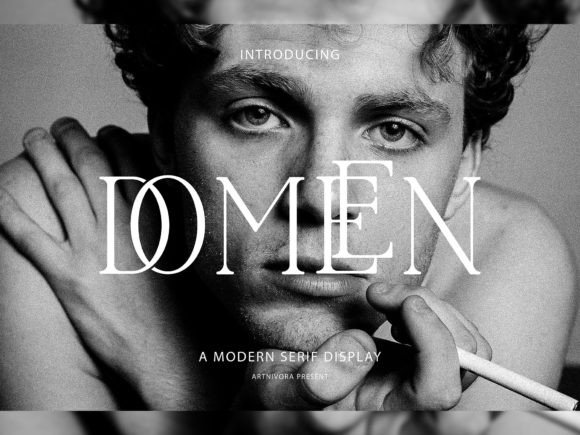
Behold, the majestic Domeen font, a serif masterpiece that exudes elegance and sophistication, captivating hearts with its timeless charm. Immerse yourself in a world of enchanting typography, where words dance and stories unfold in a harmonious symphony of aesthetics and meaning.
Journey through the ages with Domeen, a font that evokes the grandeur of Hogwarts' hallowed halls, where knowledge and magic intertwine. Experience the allure of a font that breathes life into your digital creations, transforming them into captivating works of art.
With Domeen, your designs will command attention, leaving an indelible mark on the hearts and minds of your audience. Its versatility knows no bounds, allowing you to weave your creative magic across a vast tapestry of projects.
Unleash your imagination and let Domeen guide you to typographic triumphs. Craft logos that radiate authority and prestige, design magazines that transport readers to new realms of inspiration, and create social media posts that ignite conversations and leave followers yearning for more.
Domeen's allure extends beyond the digital realm, gracing brochures, flyers, and posters with its refined presence. Its versatility shines through in invitations and greeting cards, adding a touch of elegance to life's special moments.
With Domeen as your creative companion, you'll embark on a journey of endless possibilities, where your designs will flourish and your audience will be captivated by the sheer beauty of your creations.